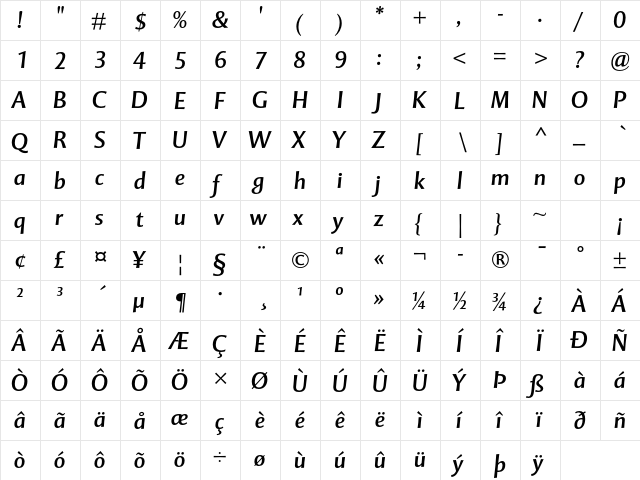
Mentor Sans Std Italic
| Designer | Michael Harvey and Andy Benedek |
Design Context for Mentor Sans Std Typeface
Mentor Sans Std is a composed and adaptable typeface that performs quietly and consistently across a wide range of design contexts. The slanted form adds forward momentum and visual energy.
Pro Tip: Try Mentor Sans Std for annotation and caption copy alongside an upright companion — the contrast in angle creates a dynamic but ordered typographic system.